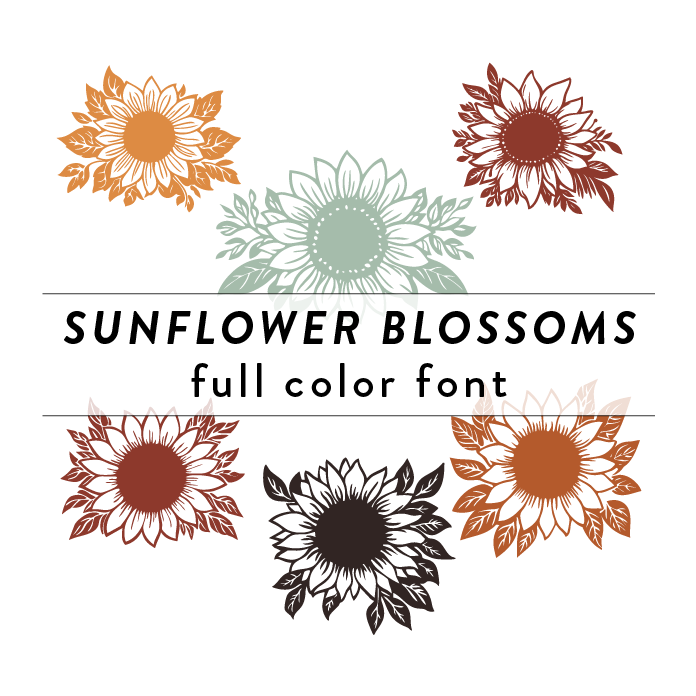
Sunflower Blossoms Full Color Font is a vibrant and playful craft font featuring intricate sunflower patterns in full color. Perfect for adding a touch of summer to any design project, this font is ideal for invitations, greeting cards, and other creative endeavors. This font is a OTF craft font that will appear in color only when used with the silhouette software.